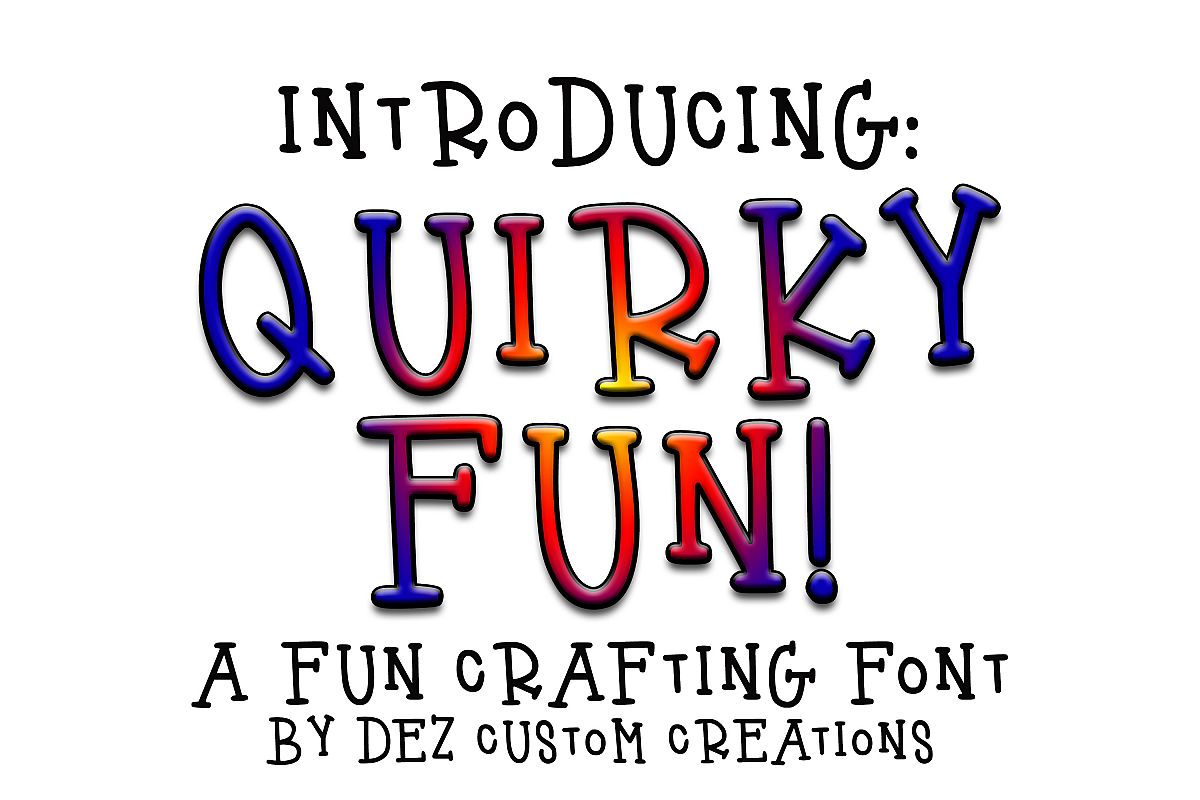
This listing comes with Quirky Fun, which has Uppercase/Lowercase (both are the same), Numbers & Punctuation.
This font is perfect for crafting and looks awesome on T-shirts, mugs, cards, invitations and so much more!